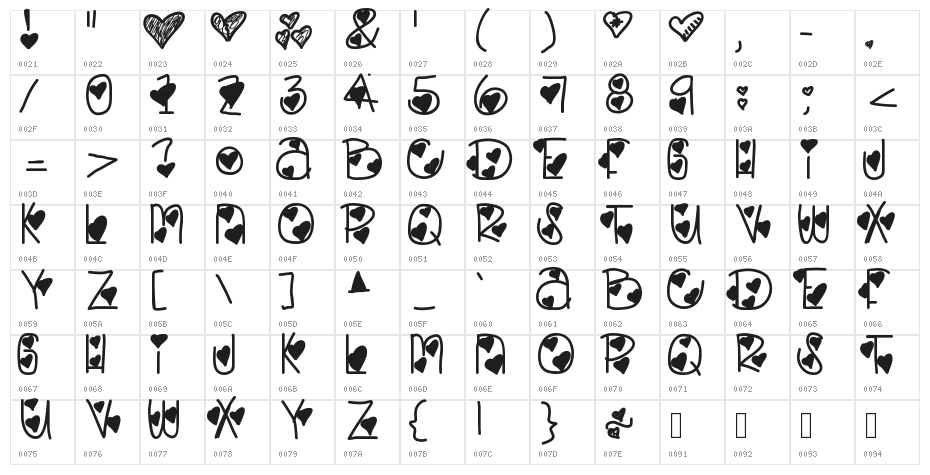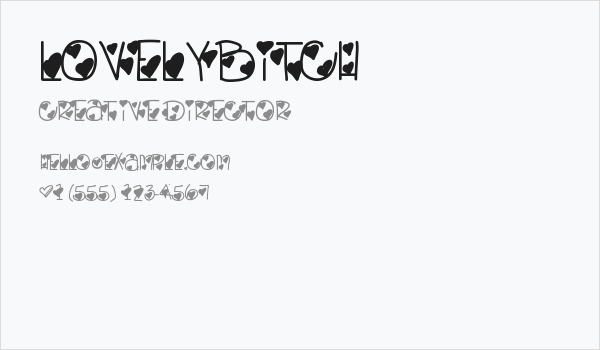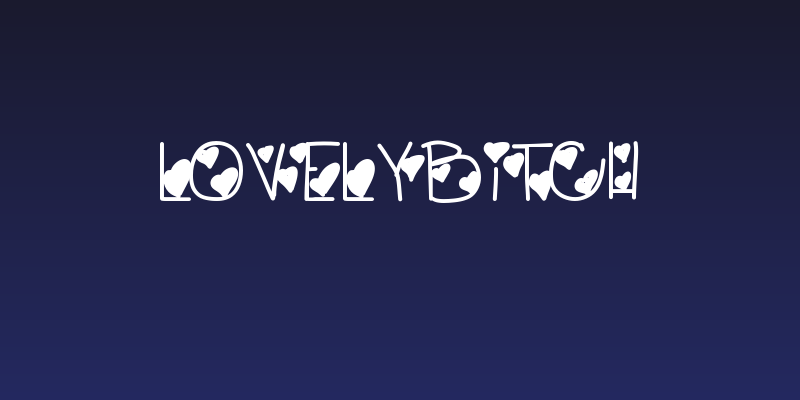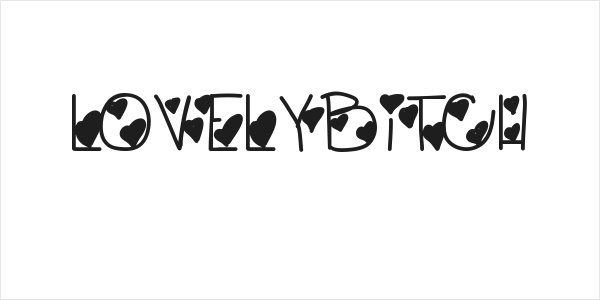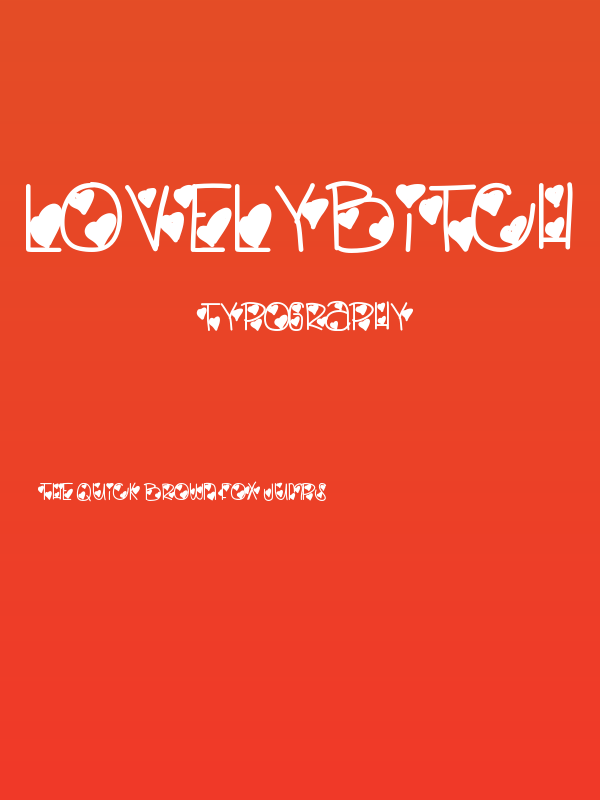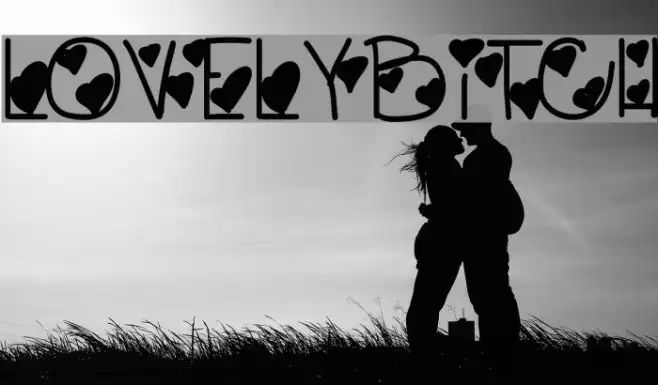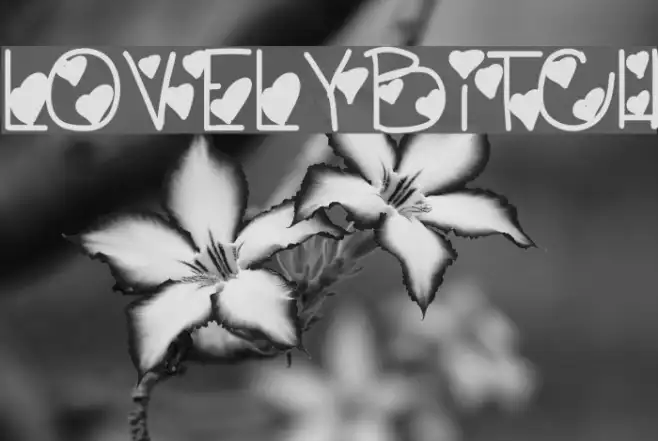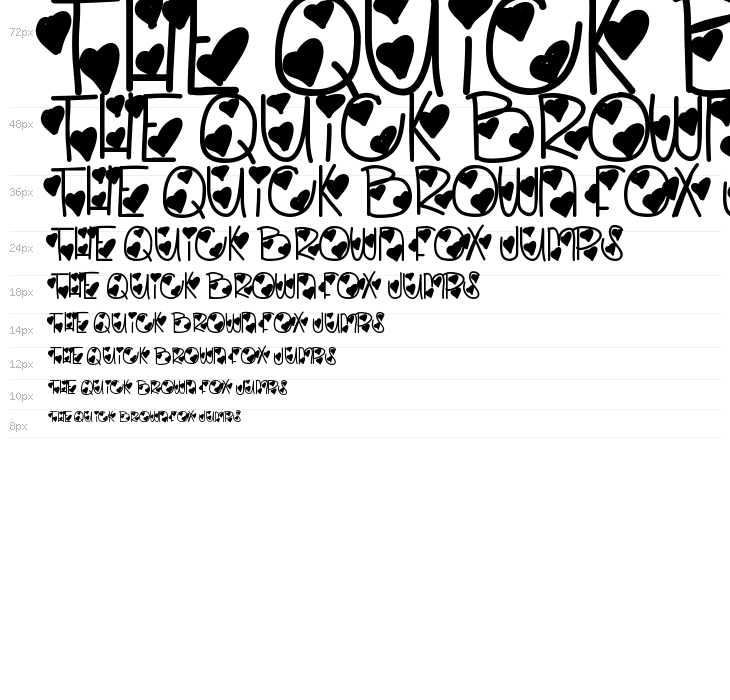
LovelyBitch Font
LovelyBitch Description
This playful and whimsical font features bold, rounded characters with heart-shaped embellishments integrated into the design. The letters are crafted with a sense of fun and creativity, making each character stand out with its unique style. The font combines a decorative flair with a sense of romance, evident in the heart motifs that replace or accompany traditional strokes. The overall appearance is lively and engaging, perfect for projects that require a touch of charm and personality. The font's design is consistent across uppercase, lowercase, numbers, and special characters, maintaining its thematic elements throughout.
| Use Case | Logos, Headlines, Greeting cards |
| Proposed Projects | Ideal for Valentine's Day cards, wedding invitations, playful branding, and children's book covers. |